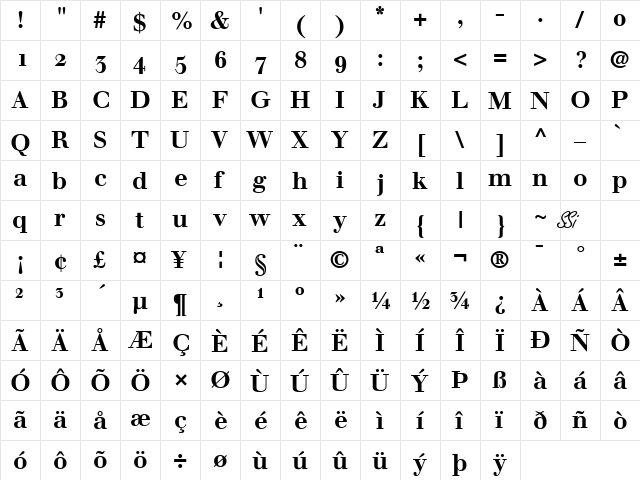
Walbaum OldStyle SSi Bold Oldstyle Figures
Design Context for Walbaum OldStyle SSi Typeface
Walbaum OldStyle SSi brings classic typographic sensibility to the table — its serifs and measured letterforms reflect centuries of print heritage. The heavy weight commands attention and anchors typographic hierarchies.
Pro Tip: Set Walbaum OldStyle SSi with slightly loose tracking in headlines to let each letterform's detail read clearly at display sizes.